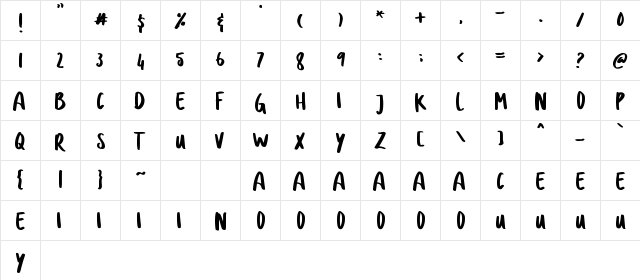
DOLANAN Regular
Design Context for DOLANAN Typeface
DOLANAN is a composed and adaptable typeface that performs quietly and consistently across a wide range of design contexts.